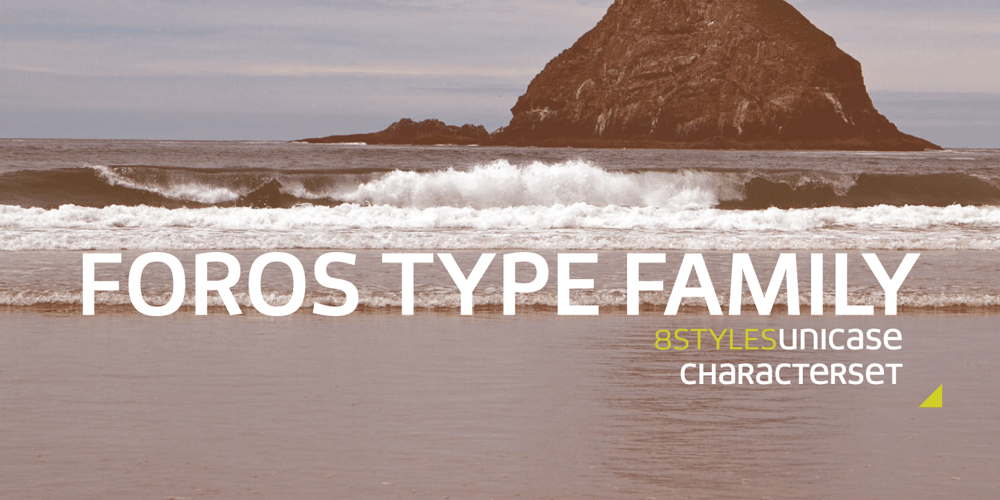
Foros
Foros font
Foros Font Family was designed by Oleg Karpinsky and published by ParaType. Foros contains 8 styles and family package options. Foros(tm) is a modern humanist sanserif font family of 8 styles. Each style contains beside many other alternatives of upper and lowercase letters a ‘unicase’ character set. Foros is a development of a modern pattern of rough geometric shapes in combination with open humanistic forms that produces a mixture of obstinacy and delicacy. Quadratic shapes of ovals bring stability and firmness, but angular terminals of diagonals in several letters together with curved junctions of bowls with verticals stems add emotions and elegance. Such variety in image make it possible to use the fonts in different kinds of display typography. Foros type family was designed by Oleg Karpinsky. Released by ParaType in 2013.